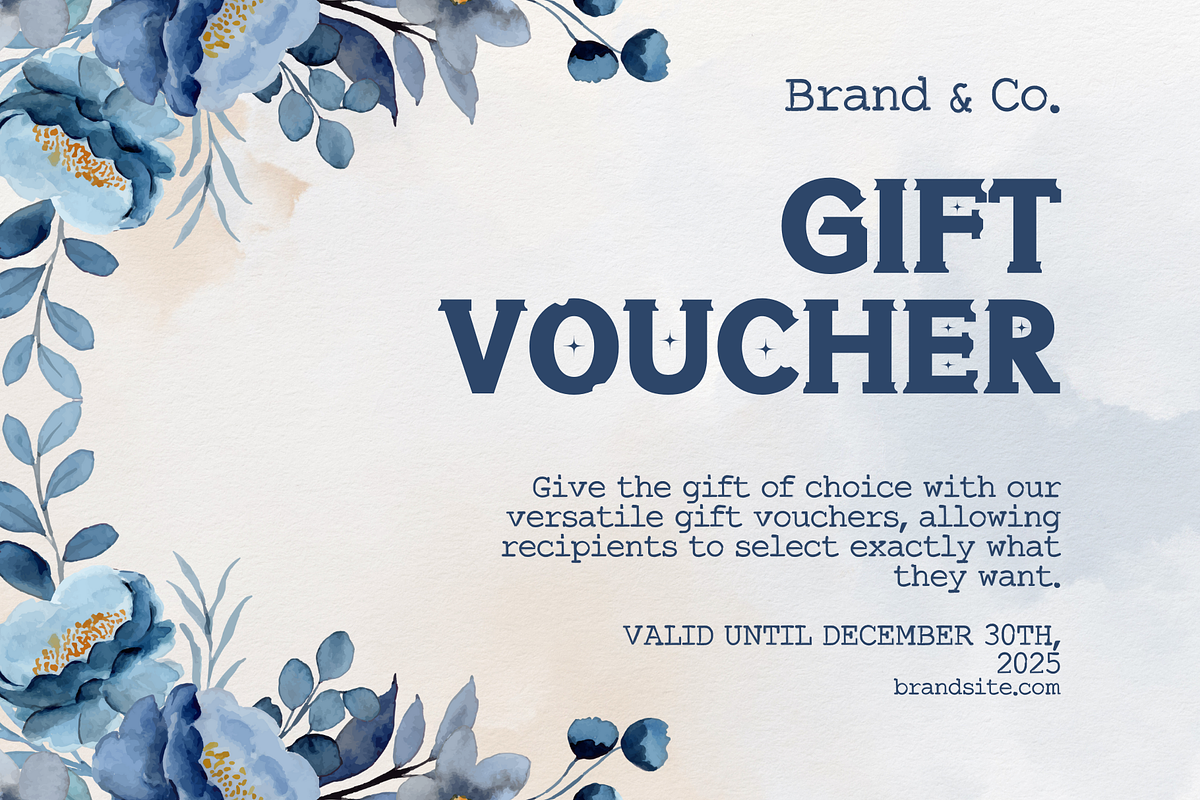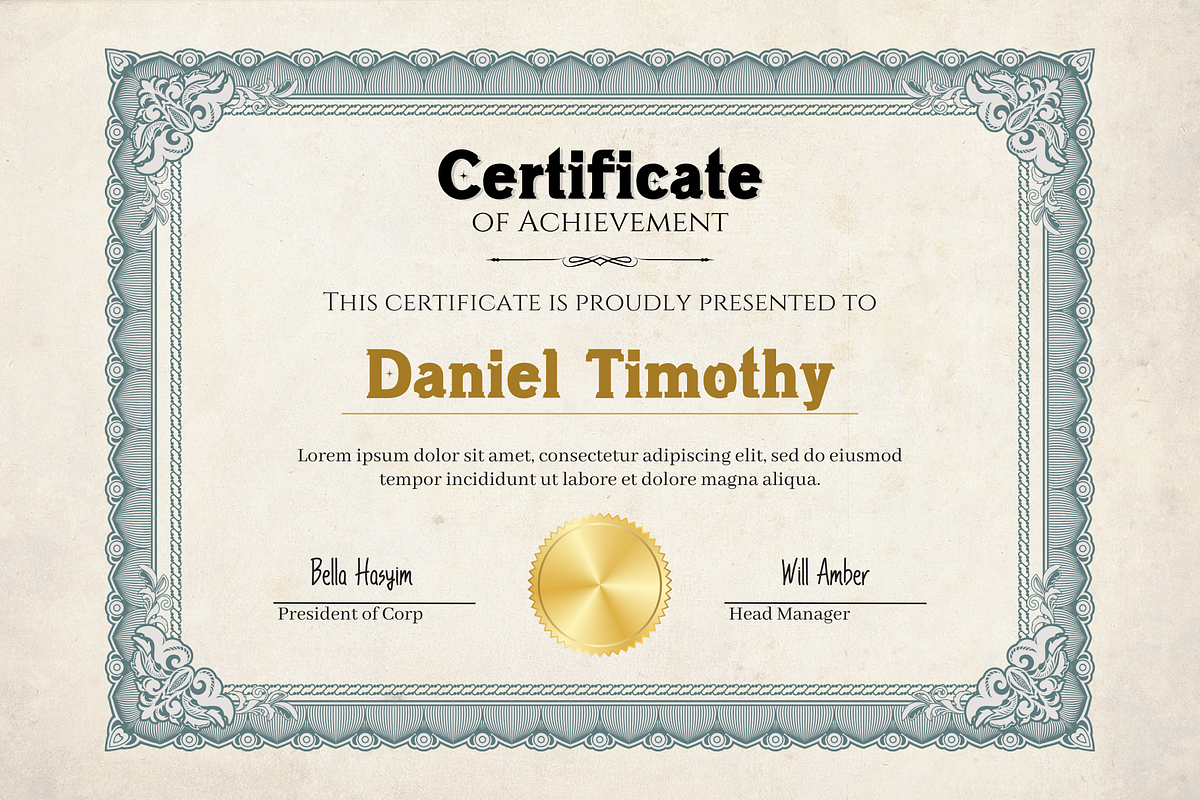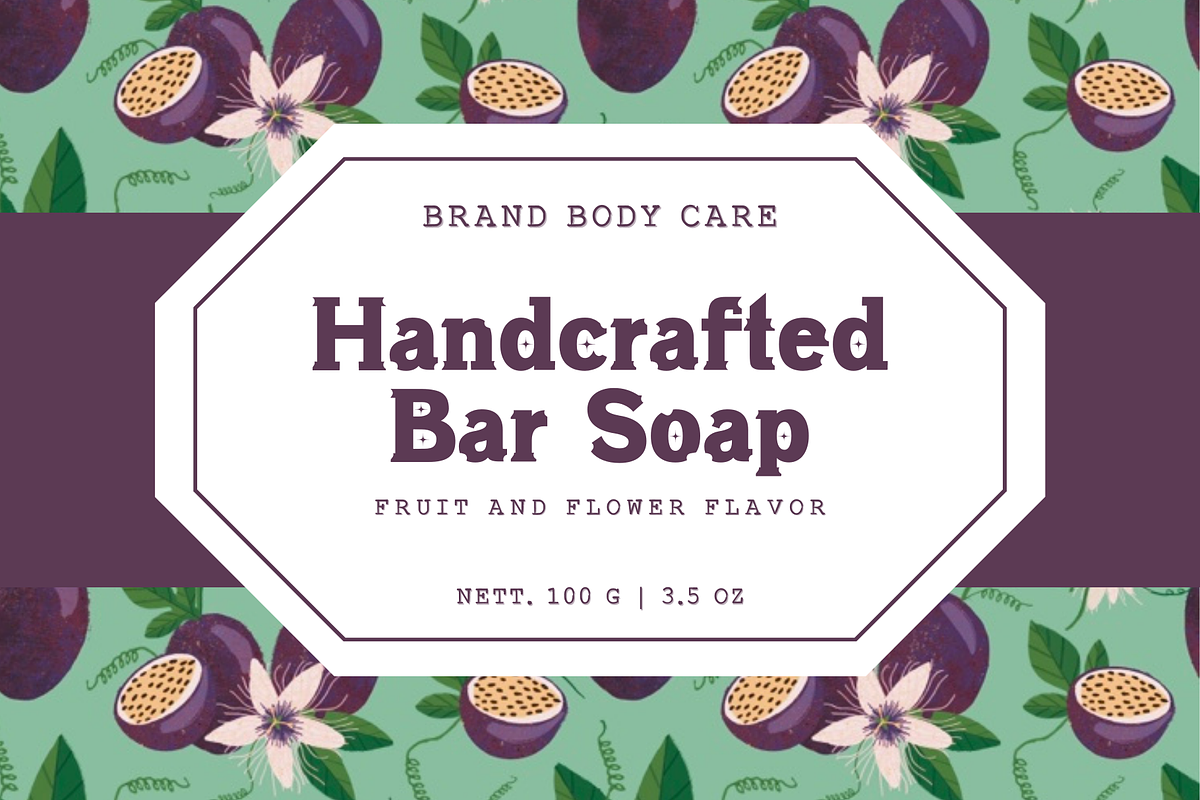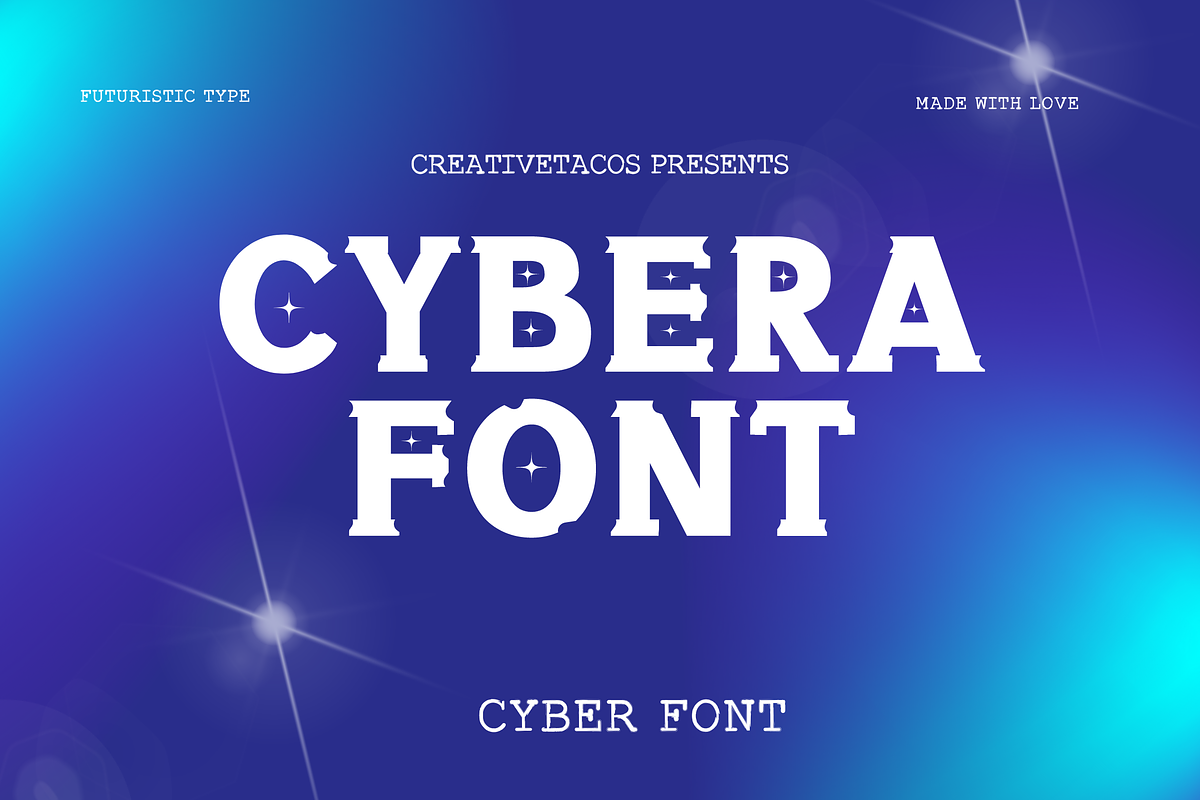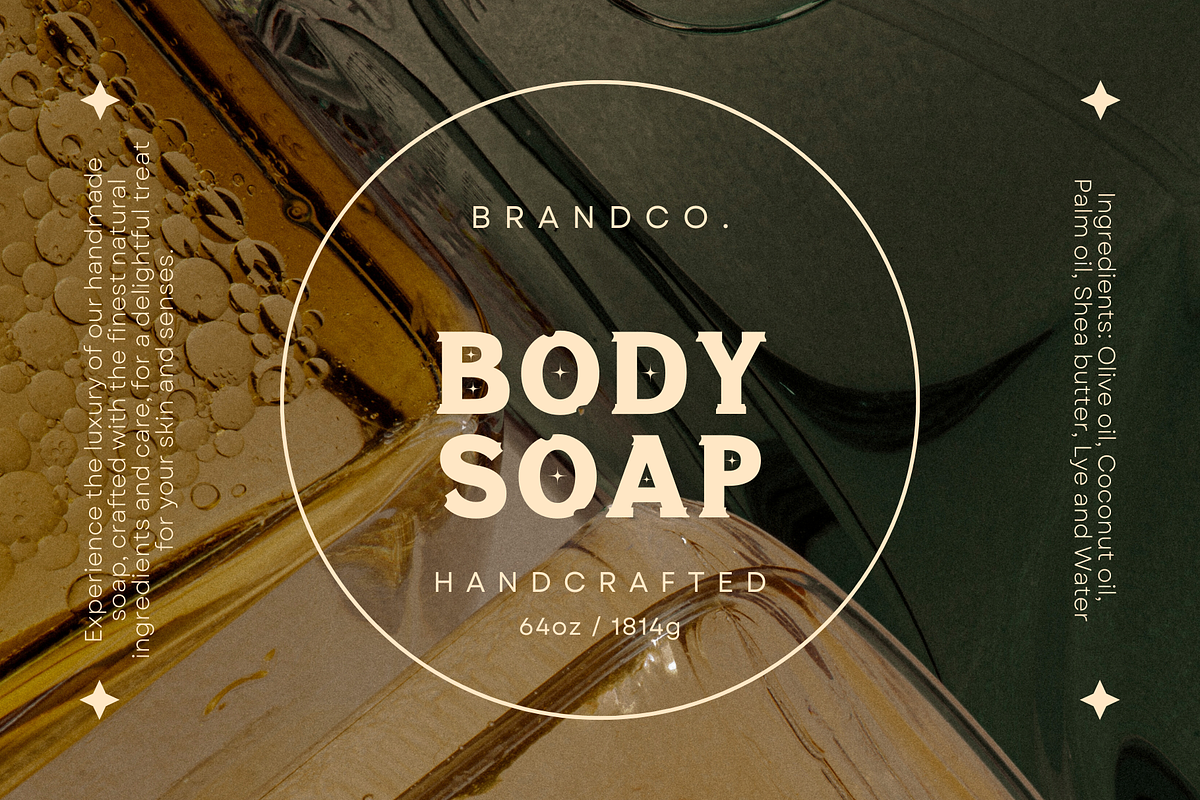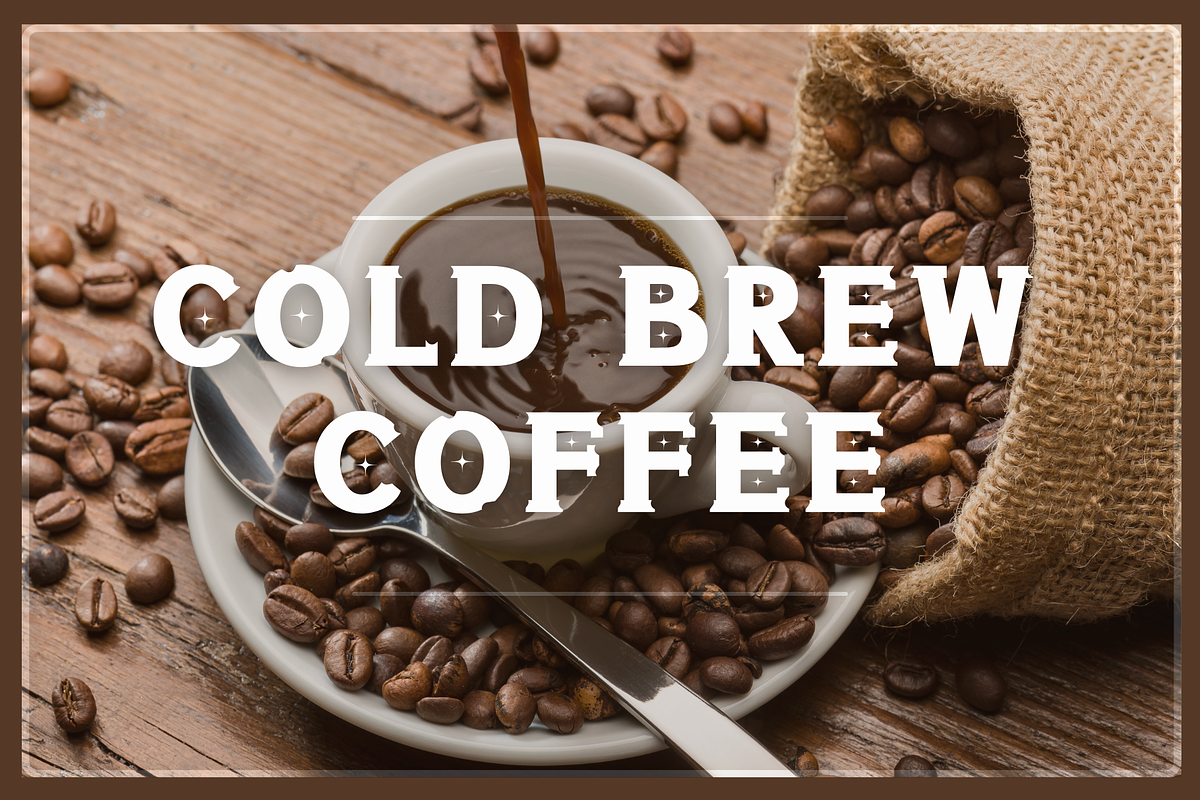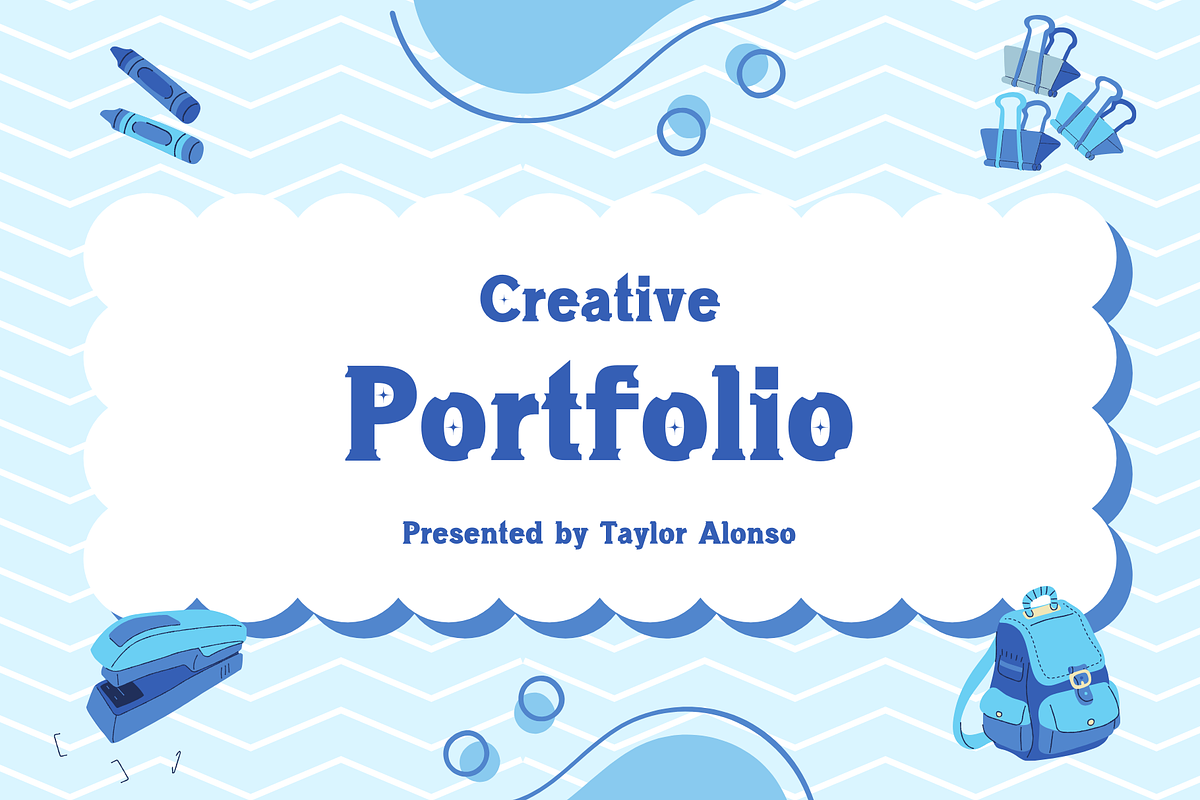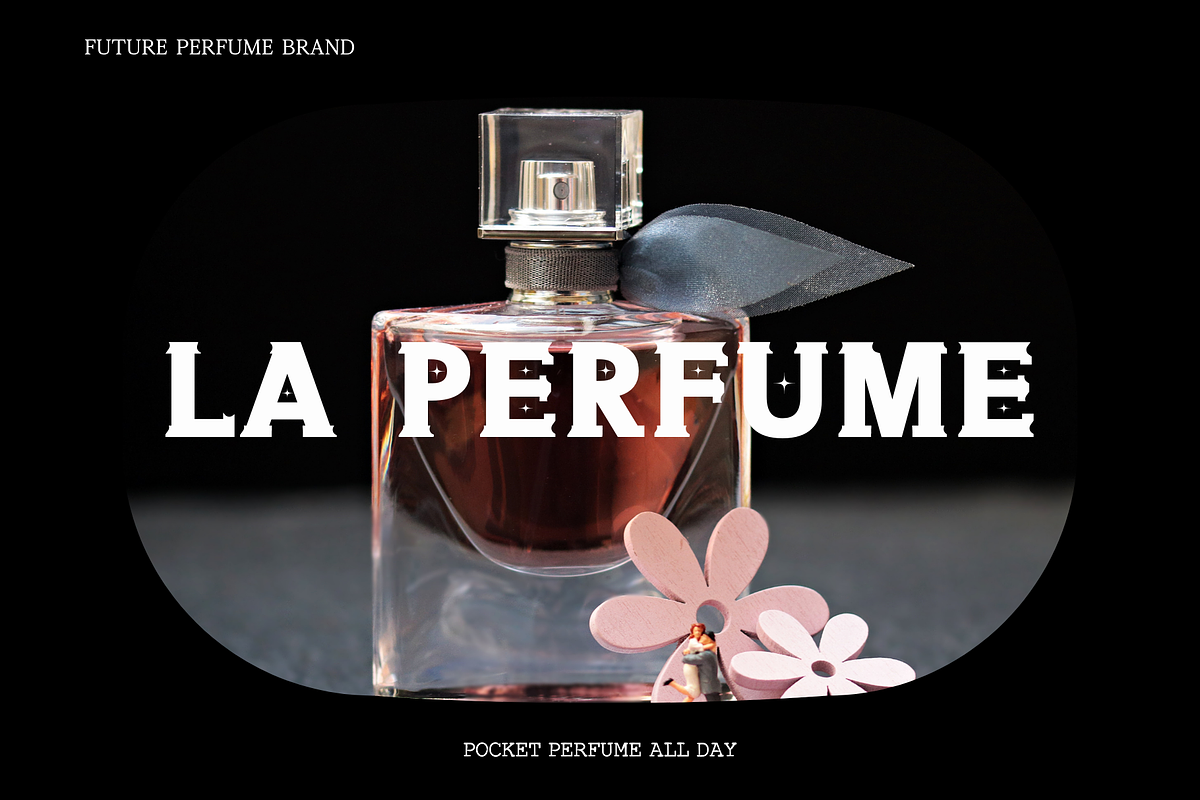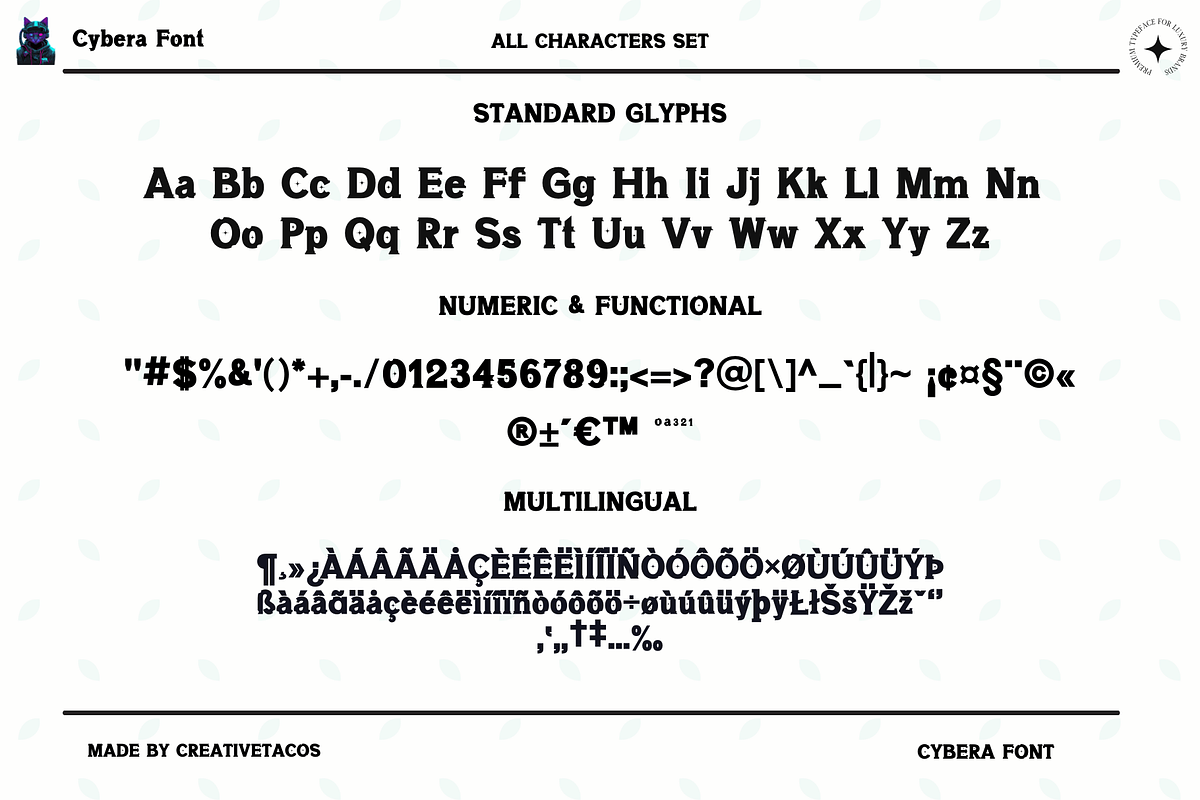
Cybera - Sci-Fi Font
Cybera font is a bold, futuristic typeface designed for those seeking a modern, cutting-edge look. Meticulously crafted to embody the sleek aesthetics of technology and innovation, this font is perfect for high-end branding, digital interfaces, and sci-fi inspired projects. With sharp lines and smooth curves, Cybera is the ideal choice for those looking to make a statement with style and sophistication.
Whether you're designing for technology brands, video games, apps, or luxury digital products, Cybera delivers an unparalleled futuristic appeal. The font is carefully designed to ensure seamless readability, while maintaining a unique, modern edge that will set your work apart.
- Complete Typeface: Includes uppercase, lowercase, numbers, punctuation, and special symbols.
- Clean and Modern Design: A fusion of futuristic geometry and sleek aesthetics.
- Ideal for Digital and Print: Perfect for tech brands, sci-fi posters, websites, and more.
- Stylish Ligatures: Enhancing the harmony between characters, adding extra flair to your text.
- Multilingual Support: Designed to work across various languages with ease.
Step into the future of typography with Cybera Font – the perfect tool for high-end, modern designs. Elevate your creative projects today.